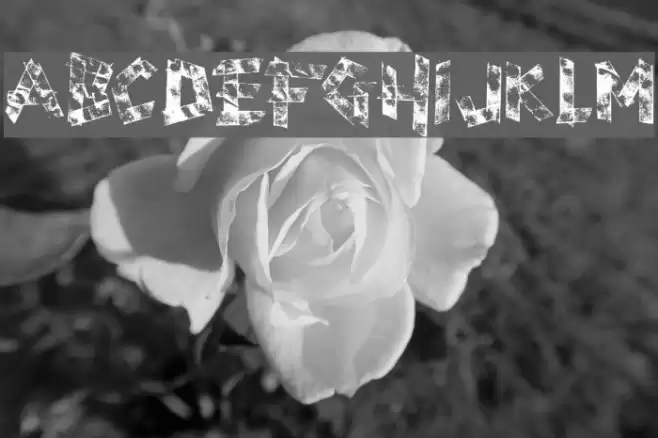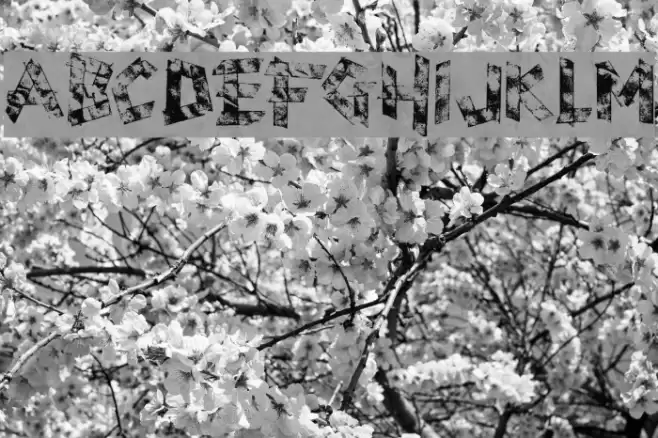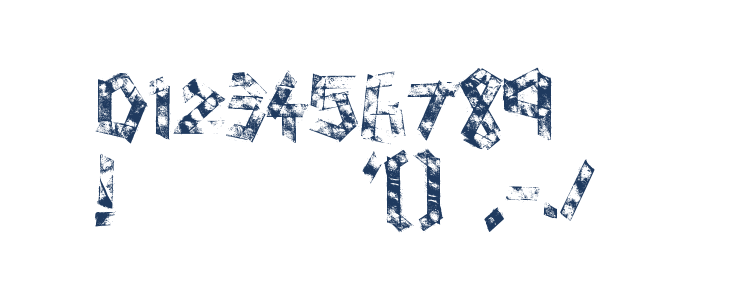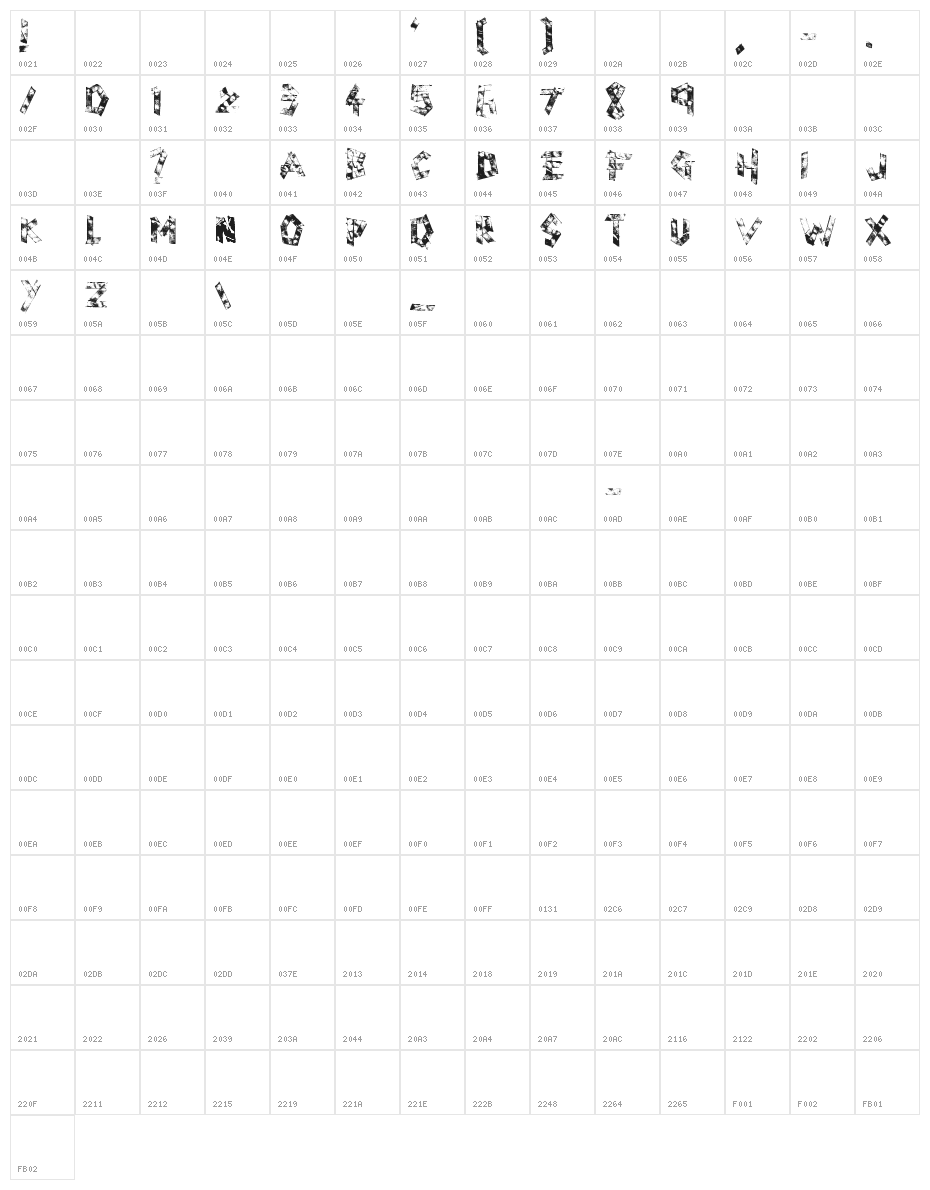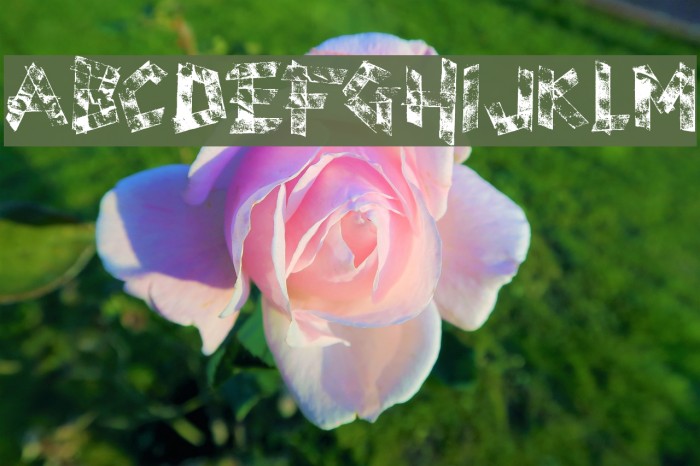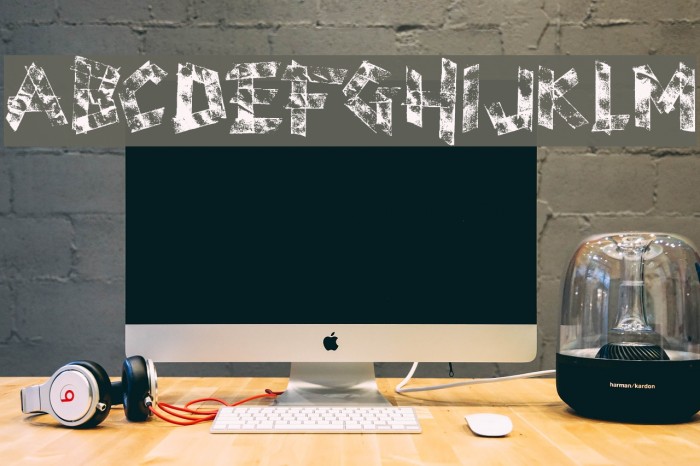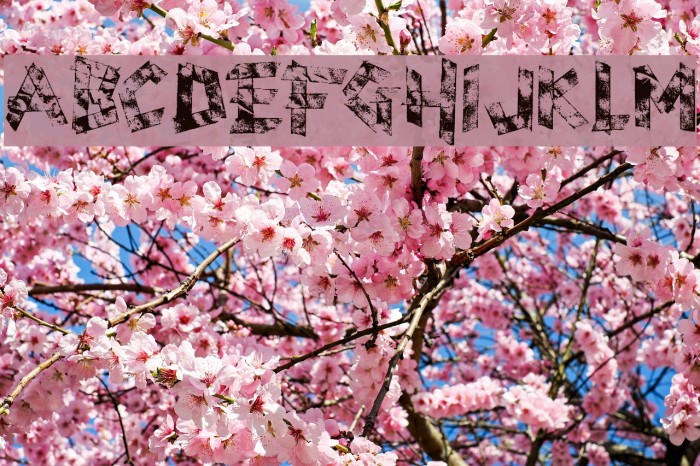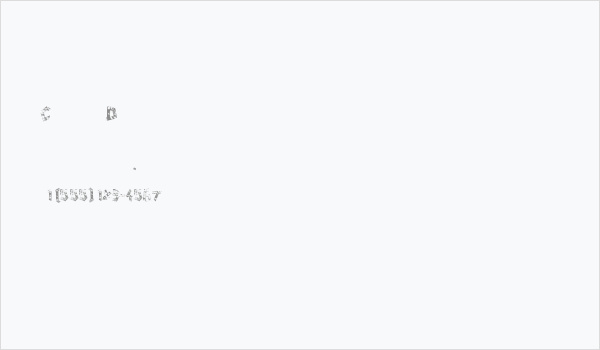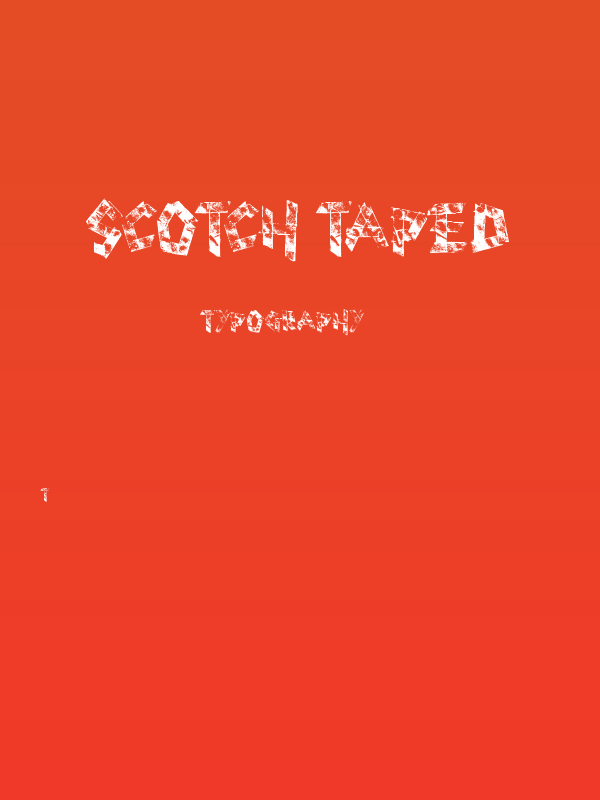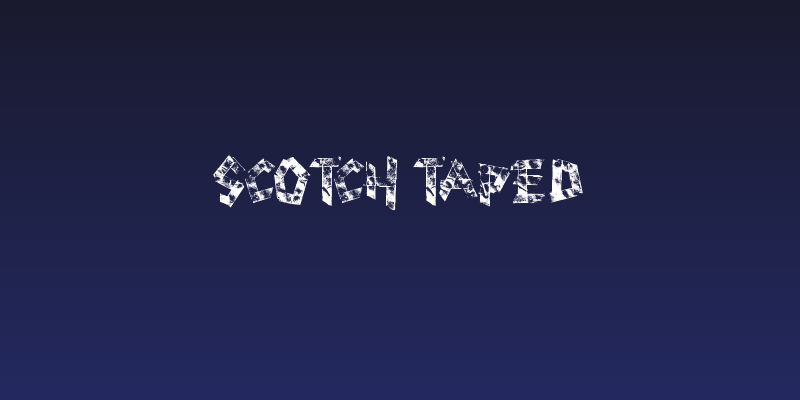
scotch taped Font
scotch taped Description
This font features a unique and rugged design, reminiscent of letters constructed from pieces of scotch tape. Each character appears to be assembled from overlapping strips, creating a textured and distressed look. The irregular edges and varying opacity of the tape pieces give the font a dynamic and edgy appearance. This style is particularly eye-catching and can convey a sense of creativity and unconventional thinking. The font maintains legibility despite its intricate design, making it suitable for various artistic and bold applications.
A rugged, tape-like font with a textured and distressed appearance from Uncategorized fonts.
- Proposed Projects: Ideal for album covers, street art-inspired designs, edgy branding, and creative posters.
- Overall Style: Modern, Edgy